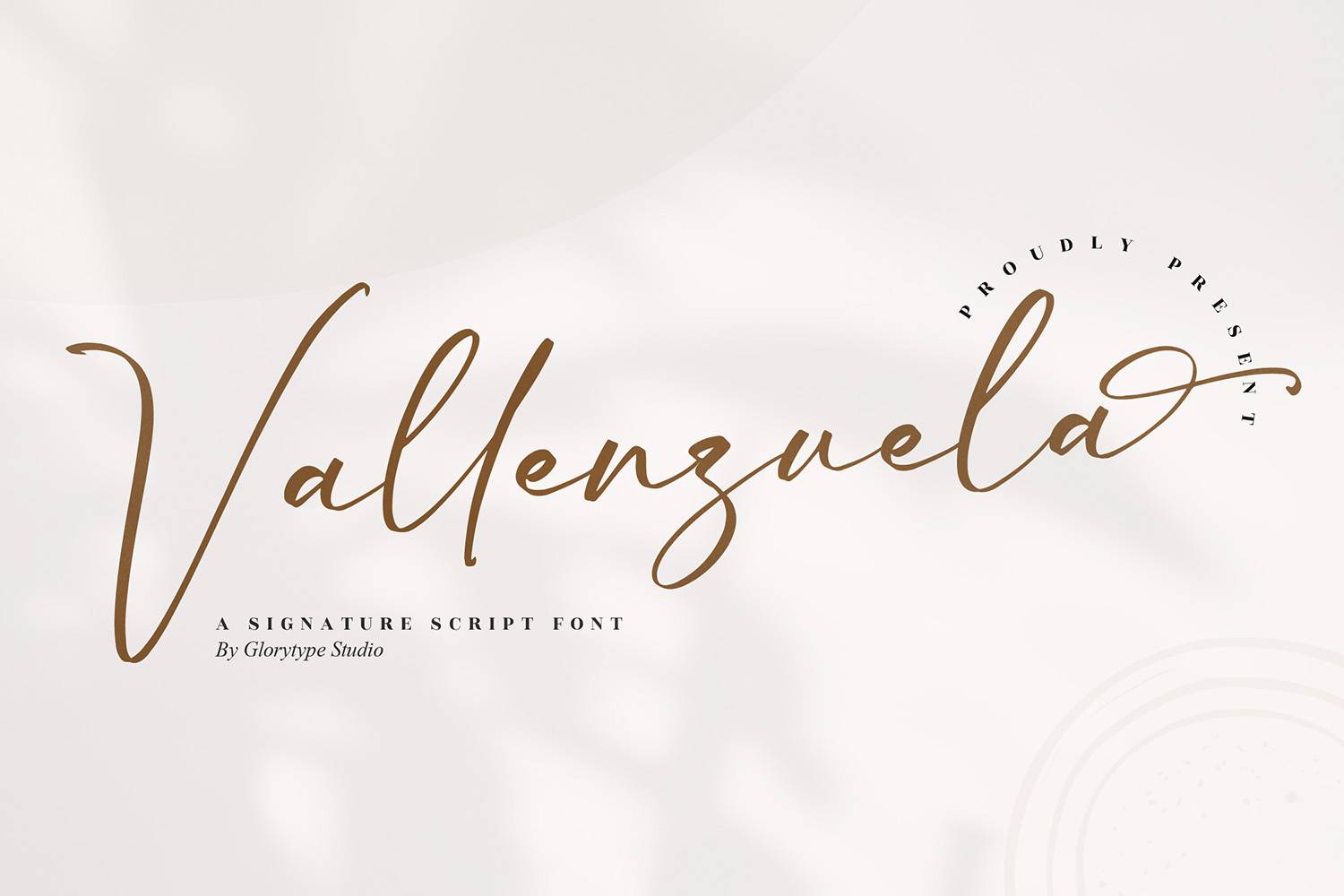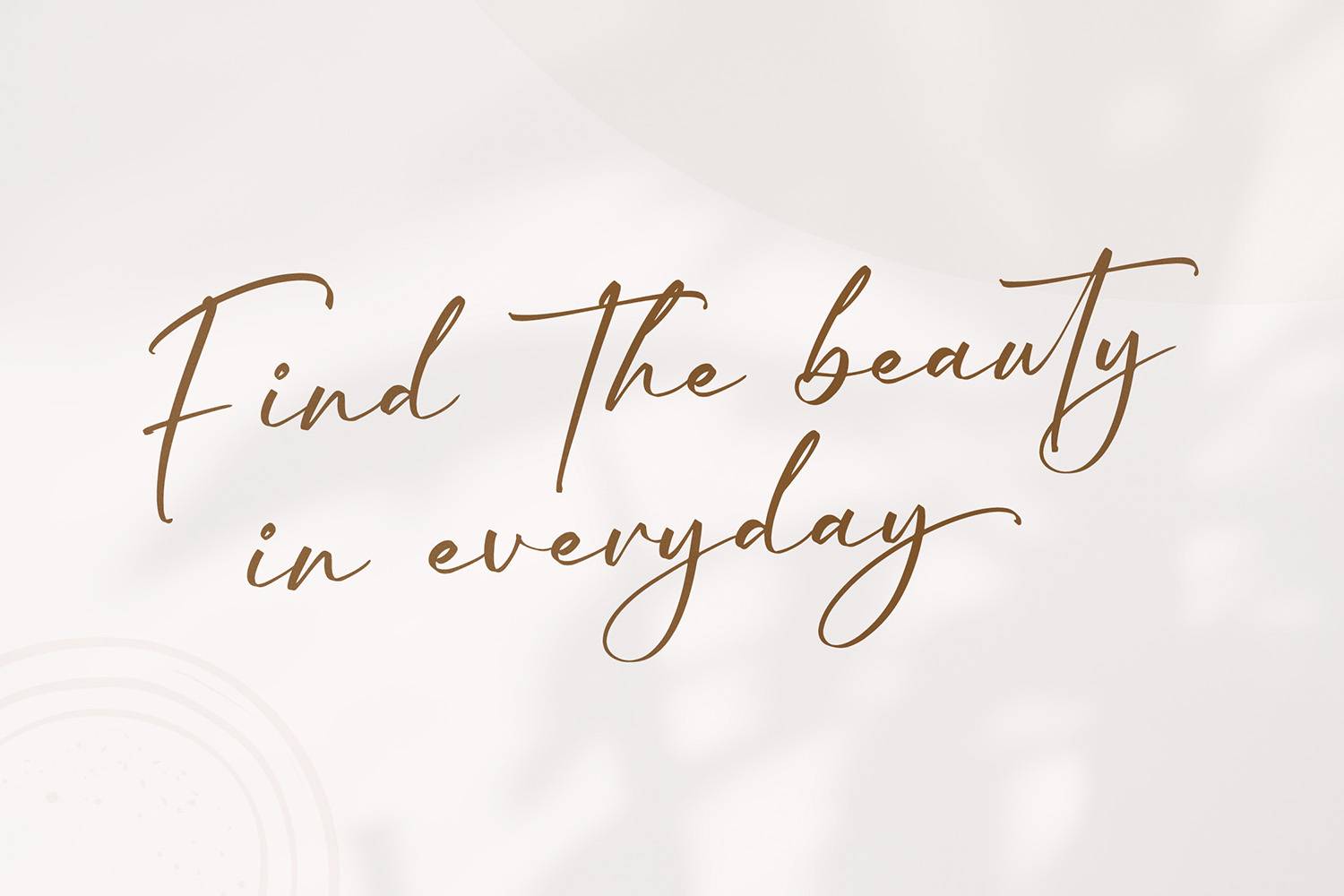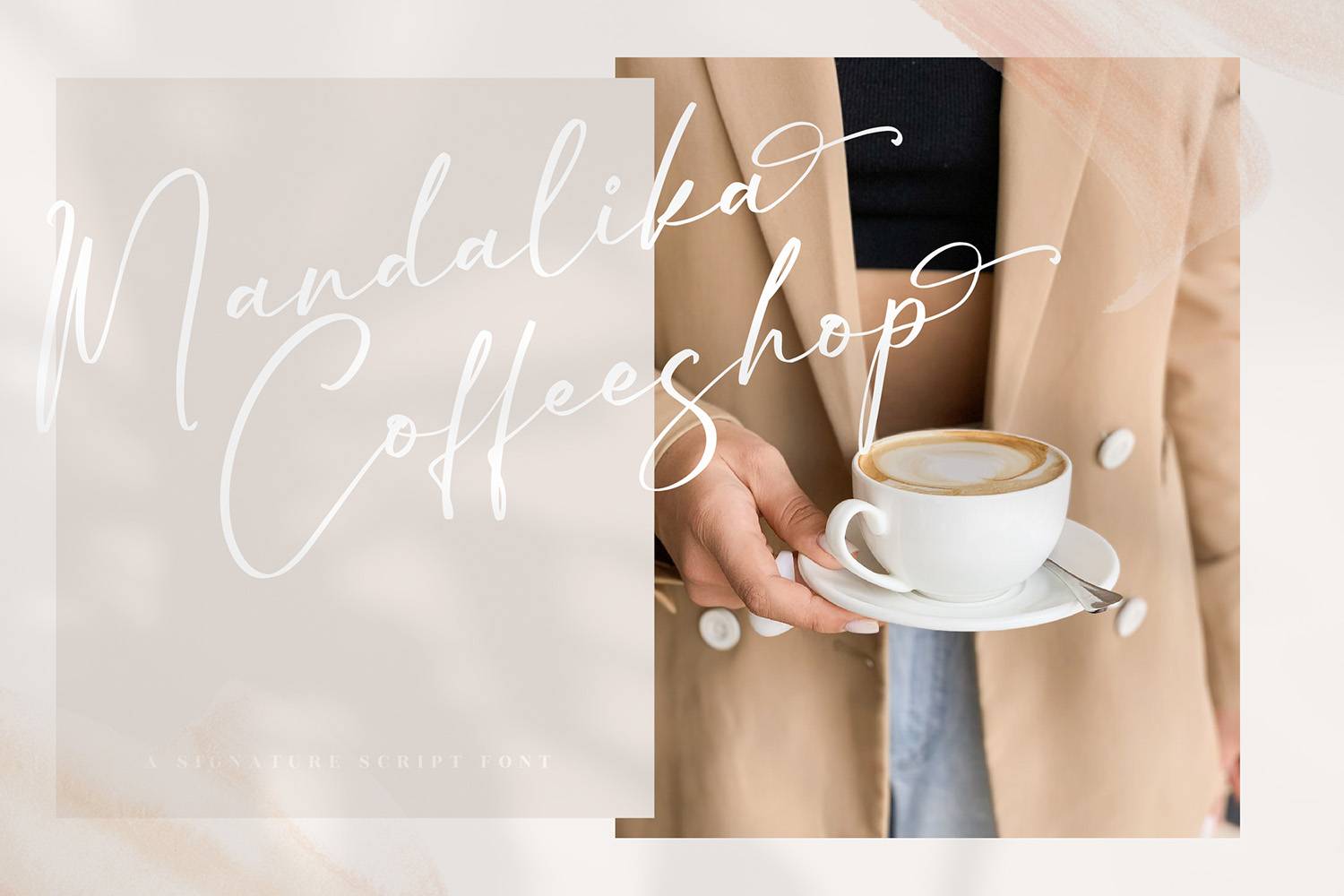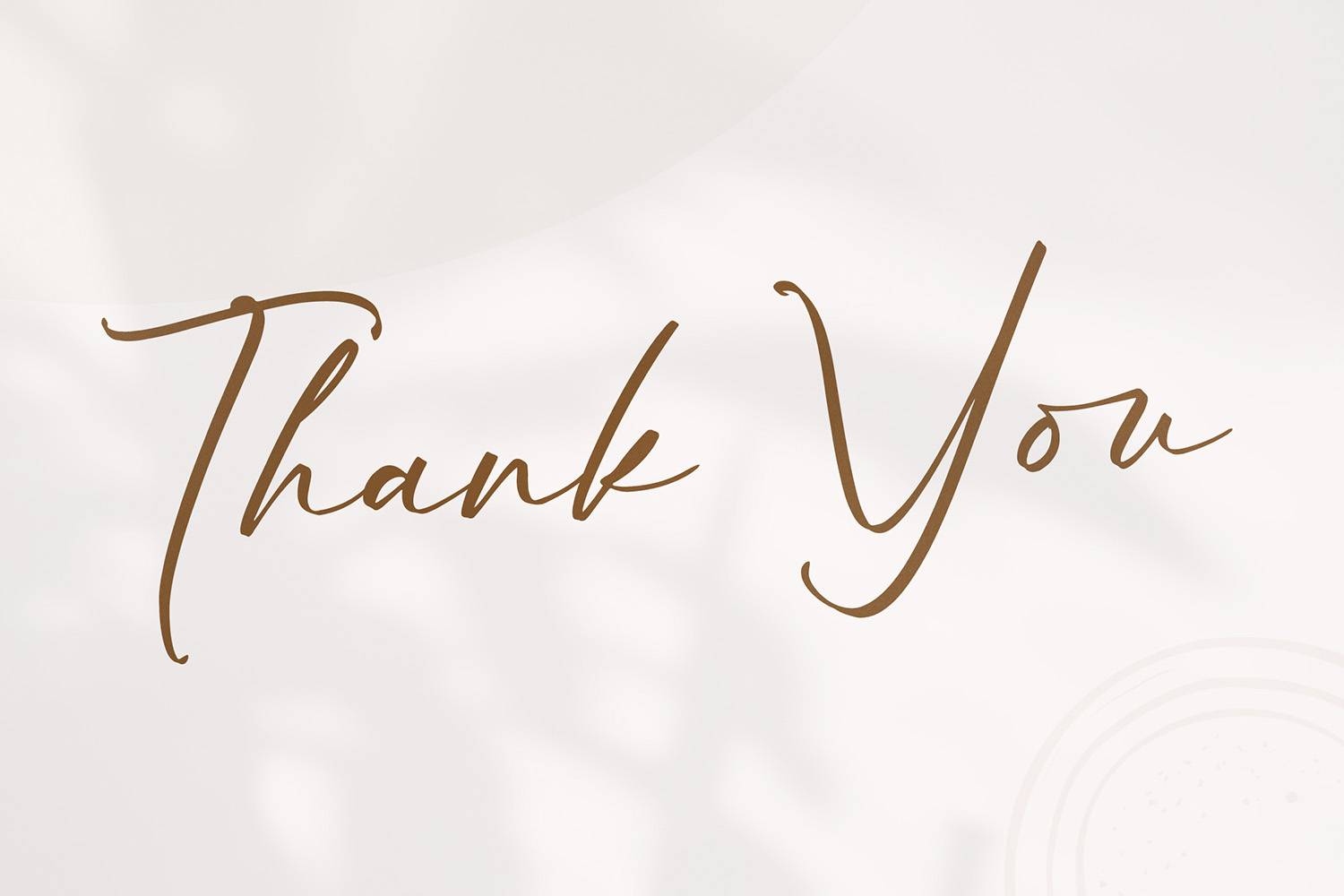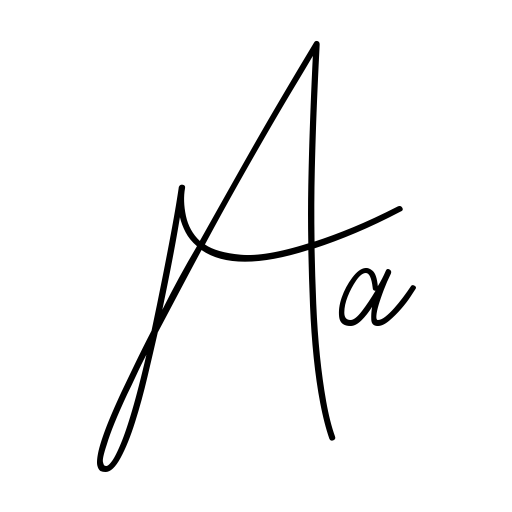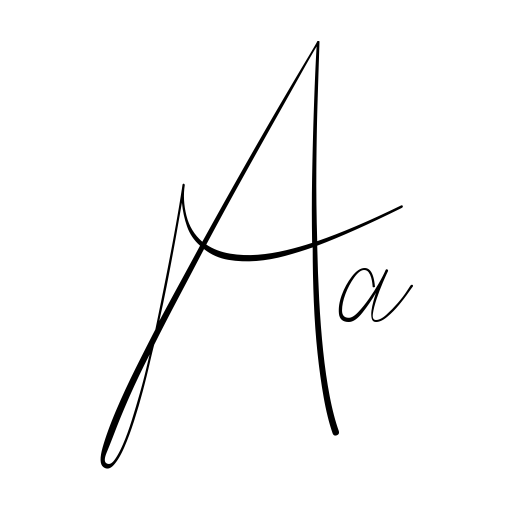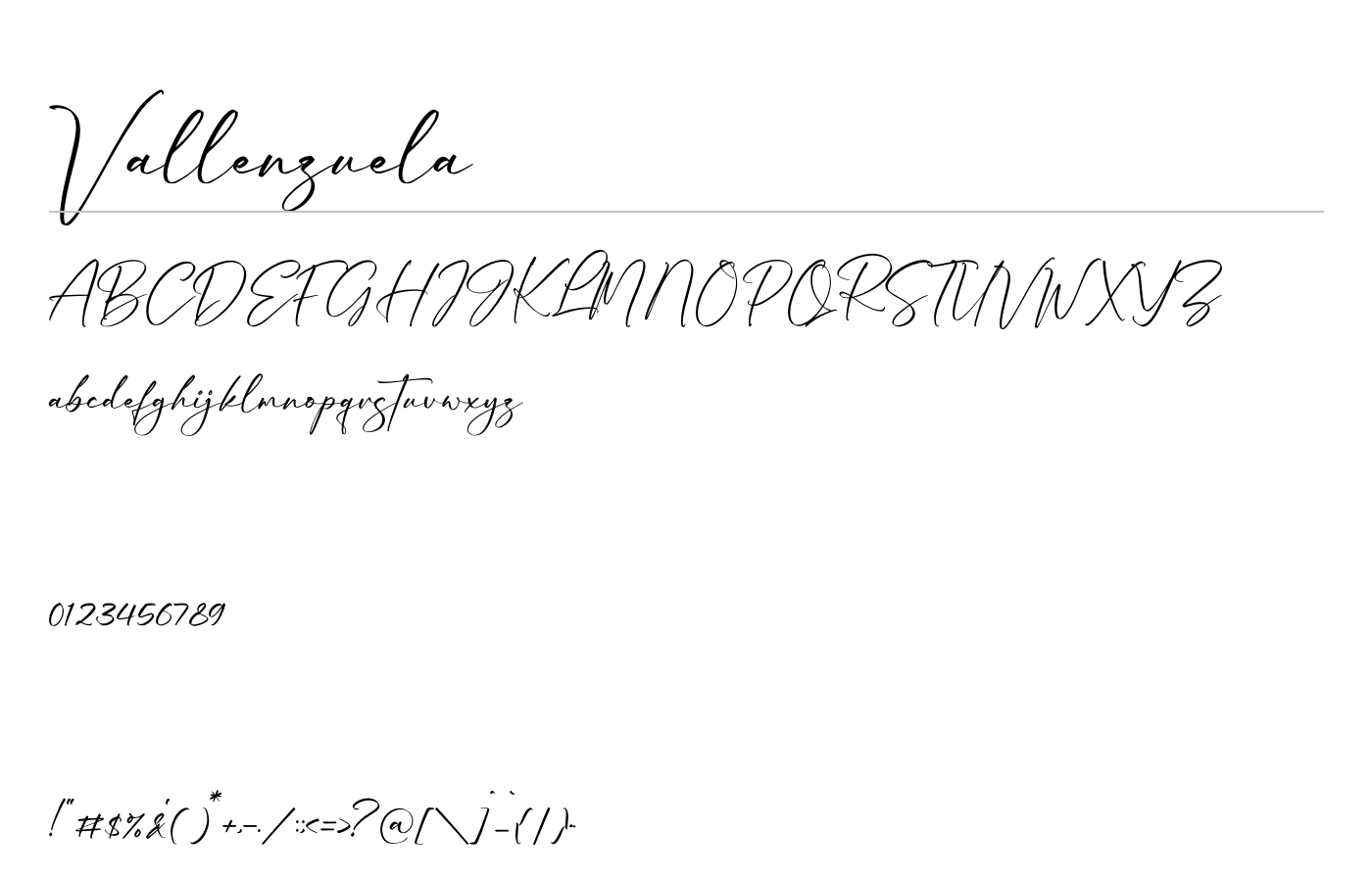
Vallenzuela is a delicate and elegant script font with a refined, handwritten style that features slender strokes and graceful curves. Its flowing letterforms and high contrast between thin and slightly thicker lines give it a sophisticated and personal feel, making it ideal for branding, invitations, and any design seeking a touch of luxury and charm. This font works beautifully in logos, fashion packaging, and editorial headlines where a stylish yet approachable vibe is desired.
Vallenzuela Font
About Vallenzuela Font